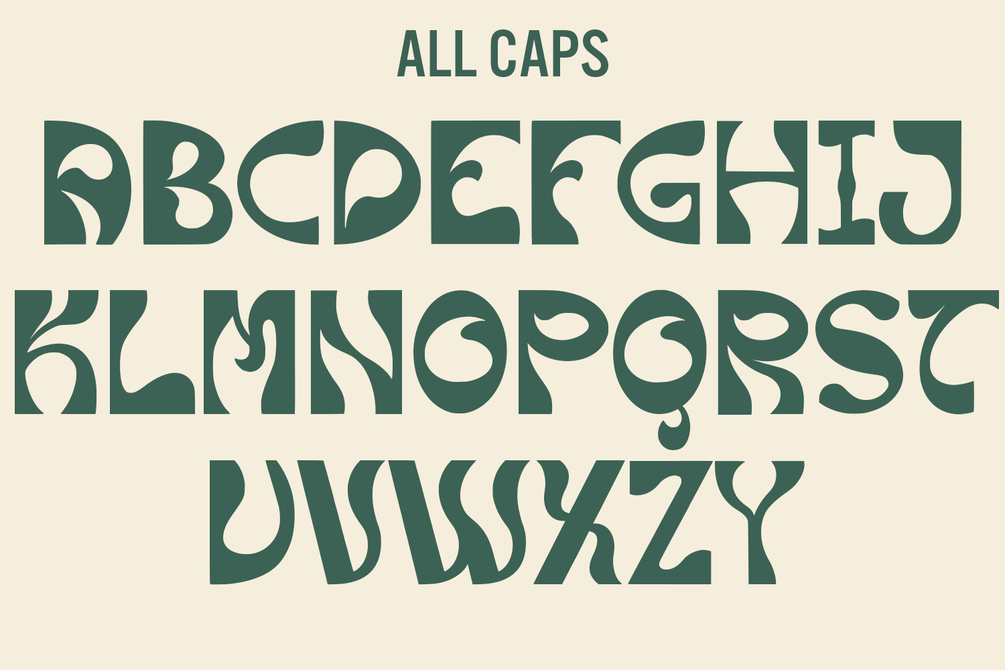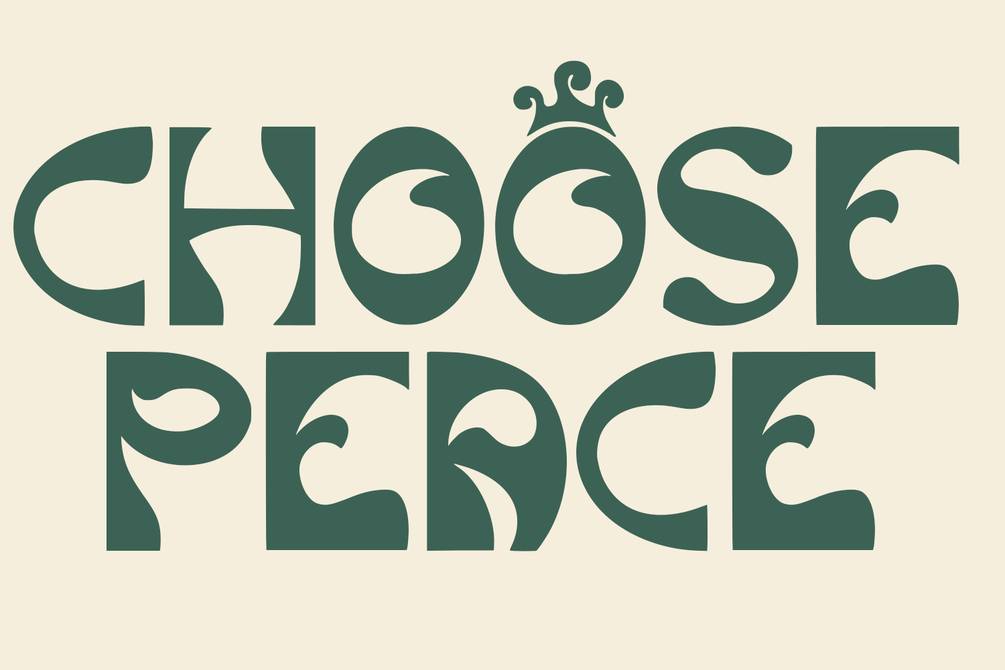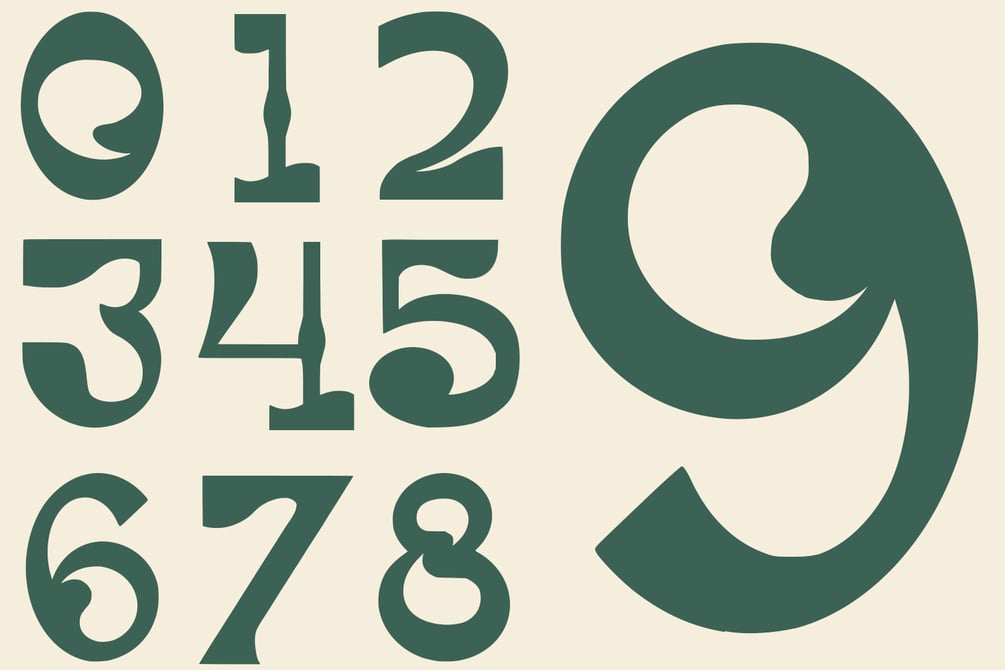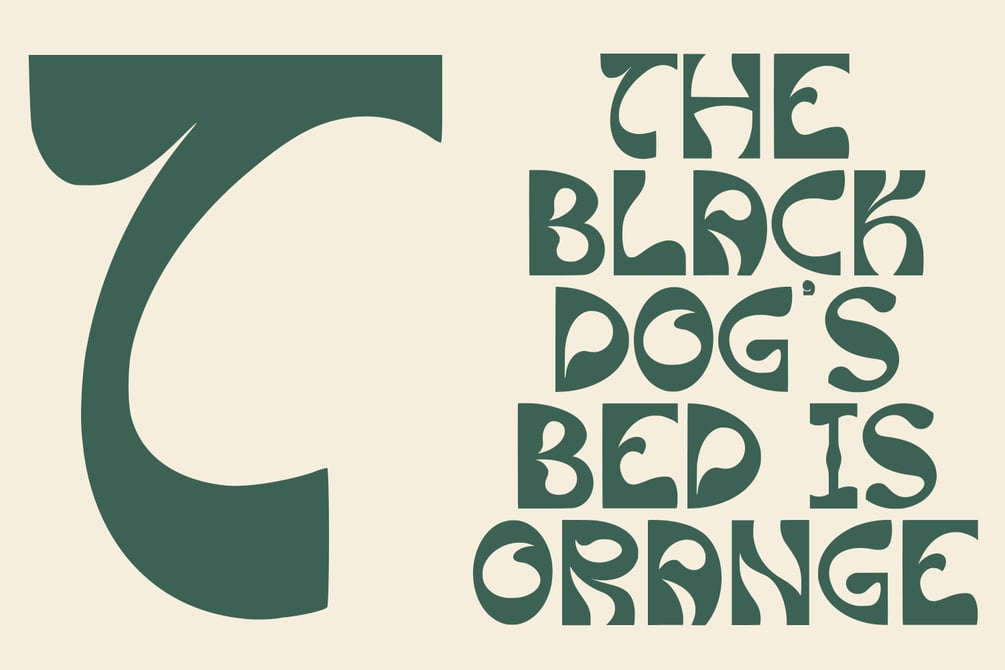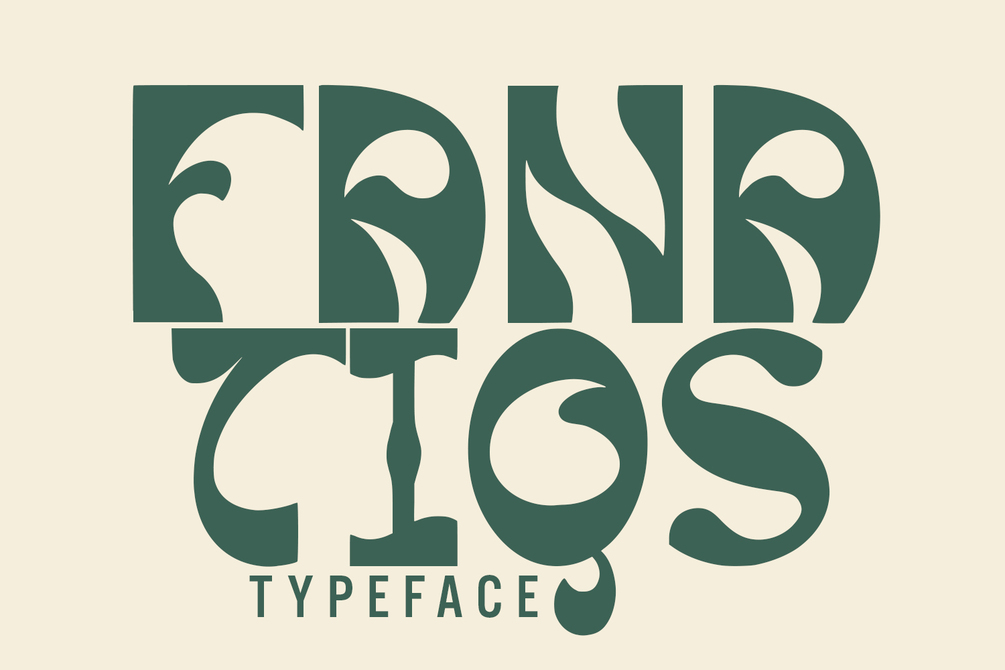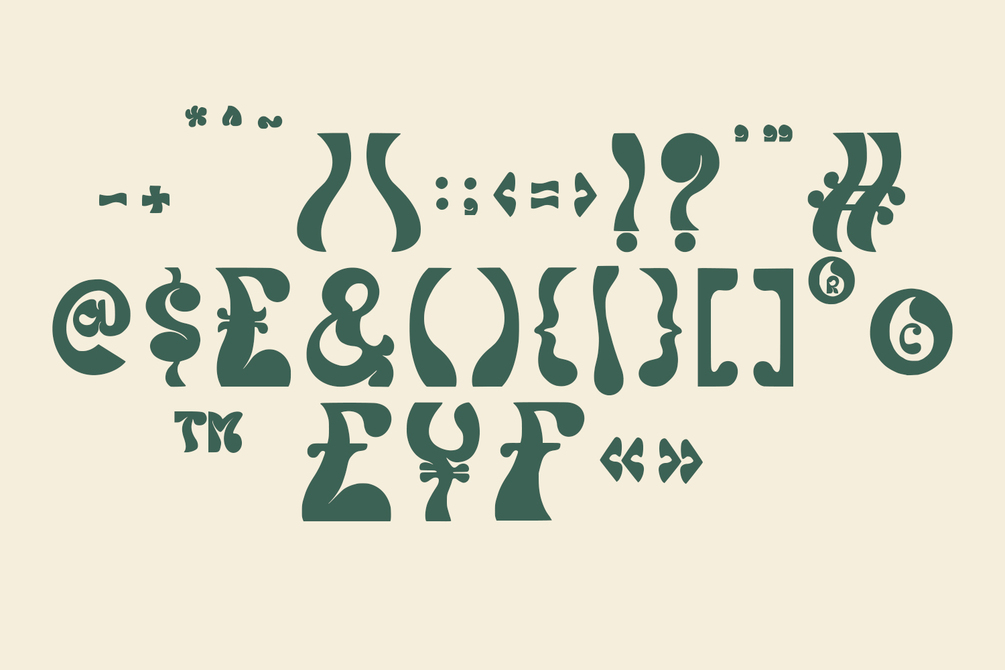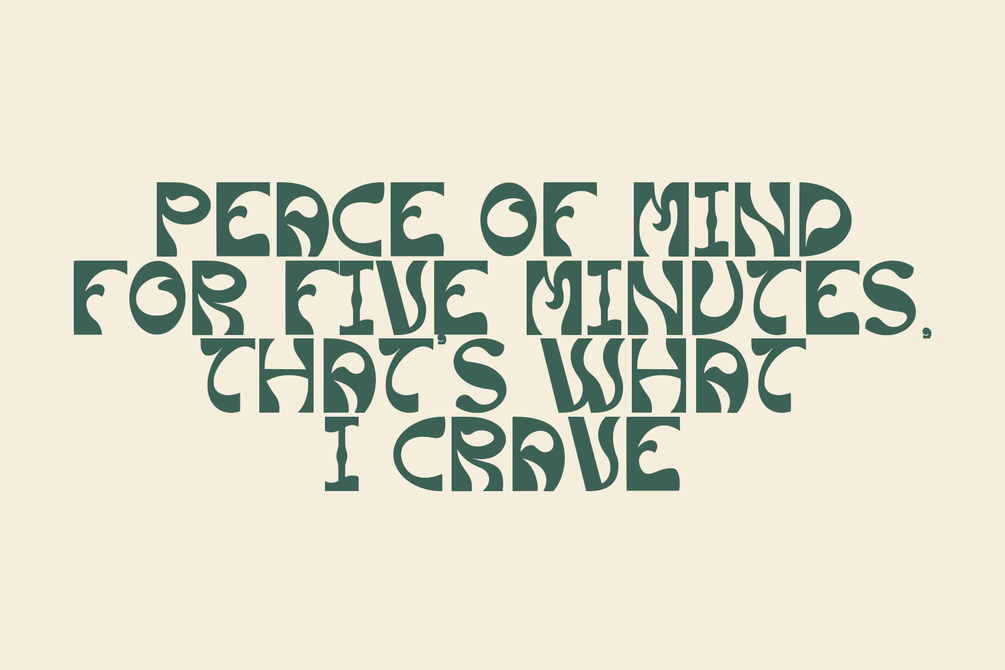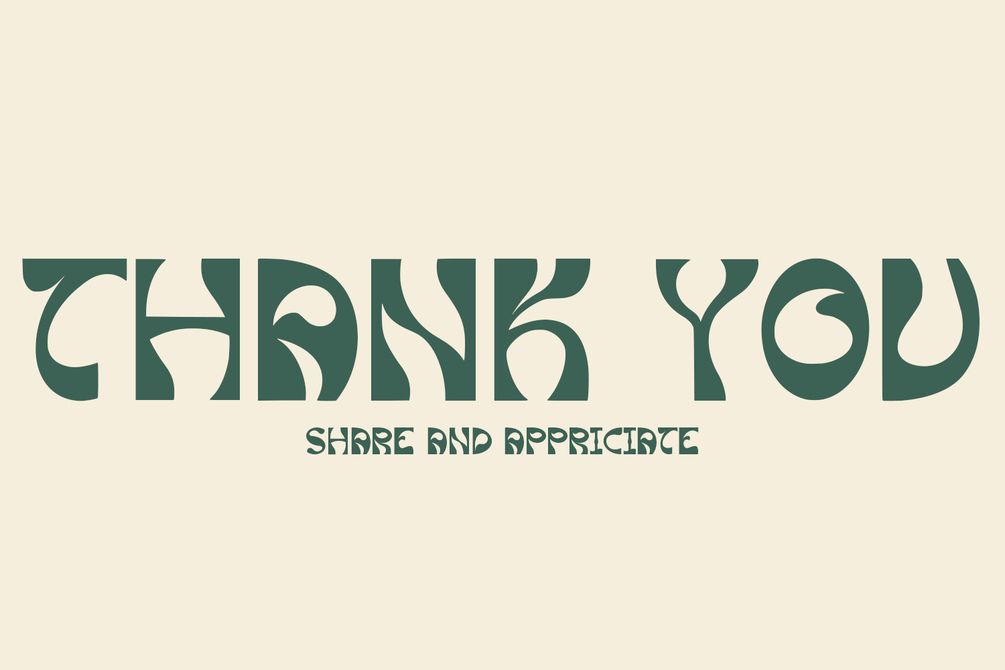
Fanatiqs - Typeface
Fanatiqs - Typeface IS AN EXPERIMENTAL FONT ADAPTED FROM A COMBINED GROOVY FONT AND GRAFFITI THAT MAKES ITS UNIQUE CHARACTER AS A DISPLAY FONT, THIS FONT IS VERY SUITABLE TO USE AS YOUR PROJECT DESIGN SUCH AS GRAPHIC TEMPLATE OR CLOTHING